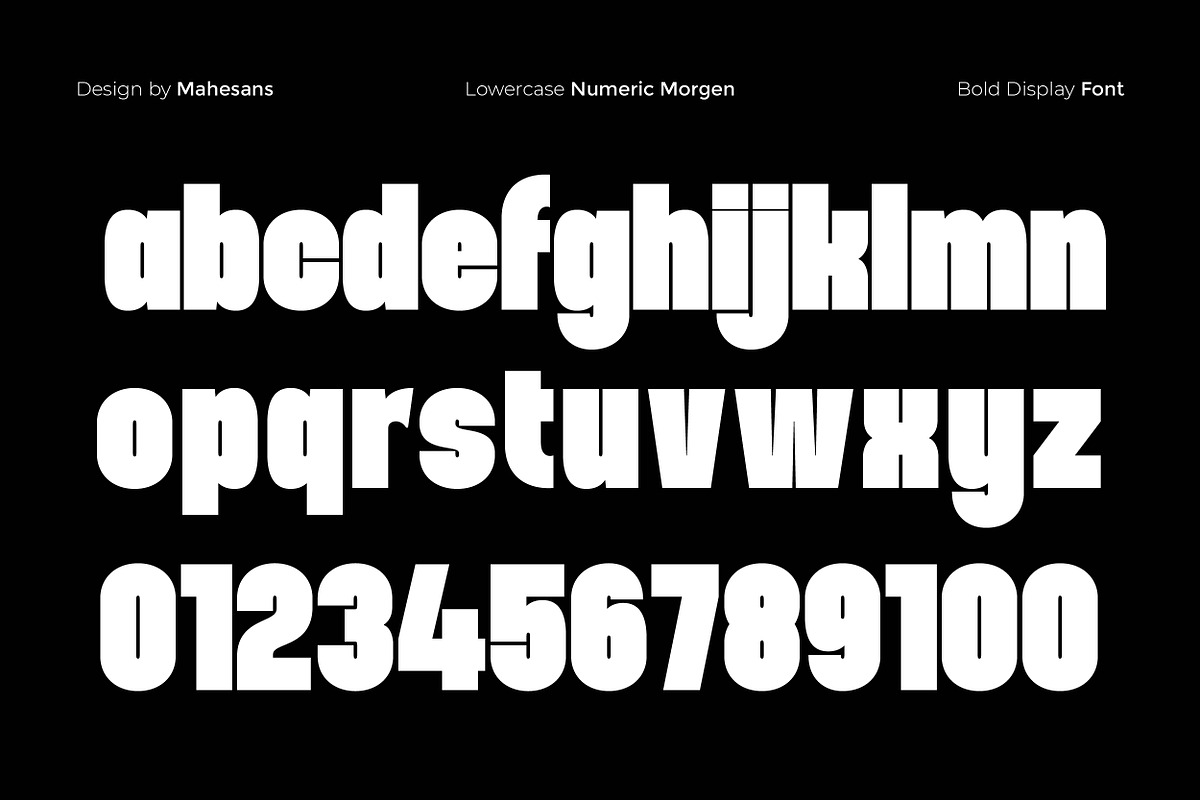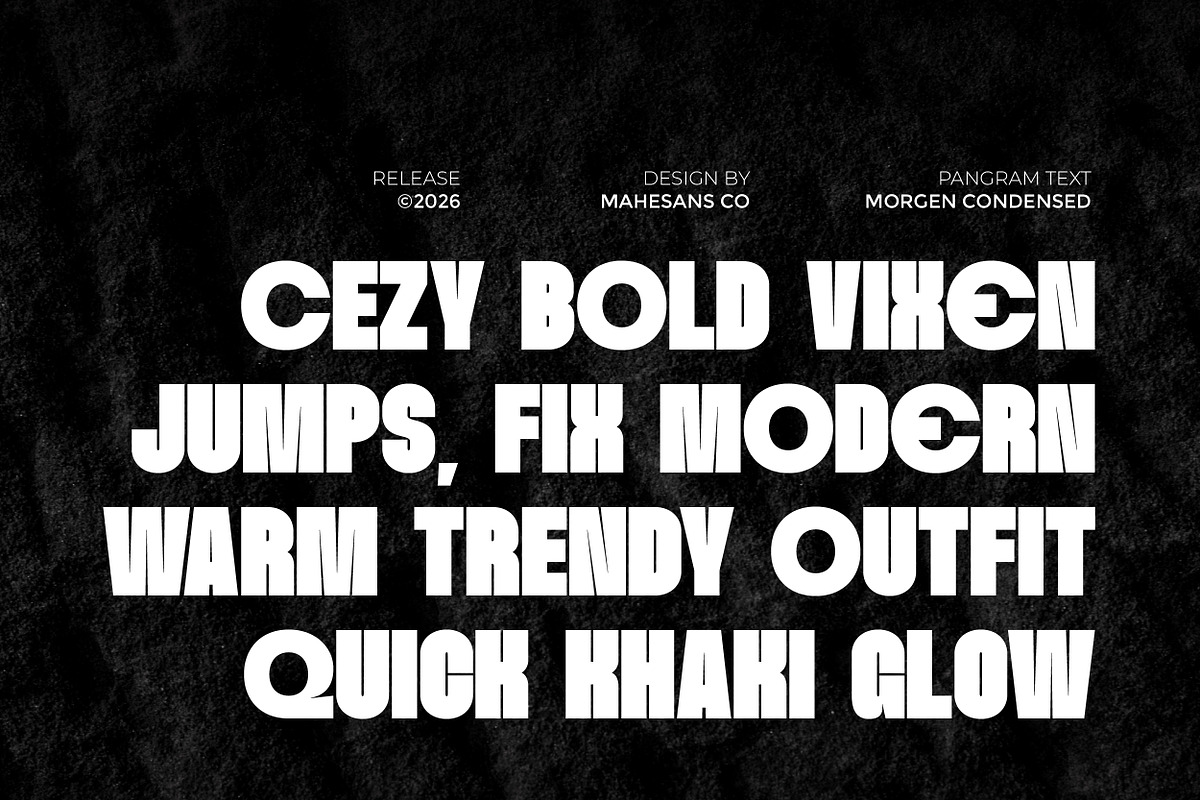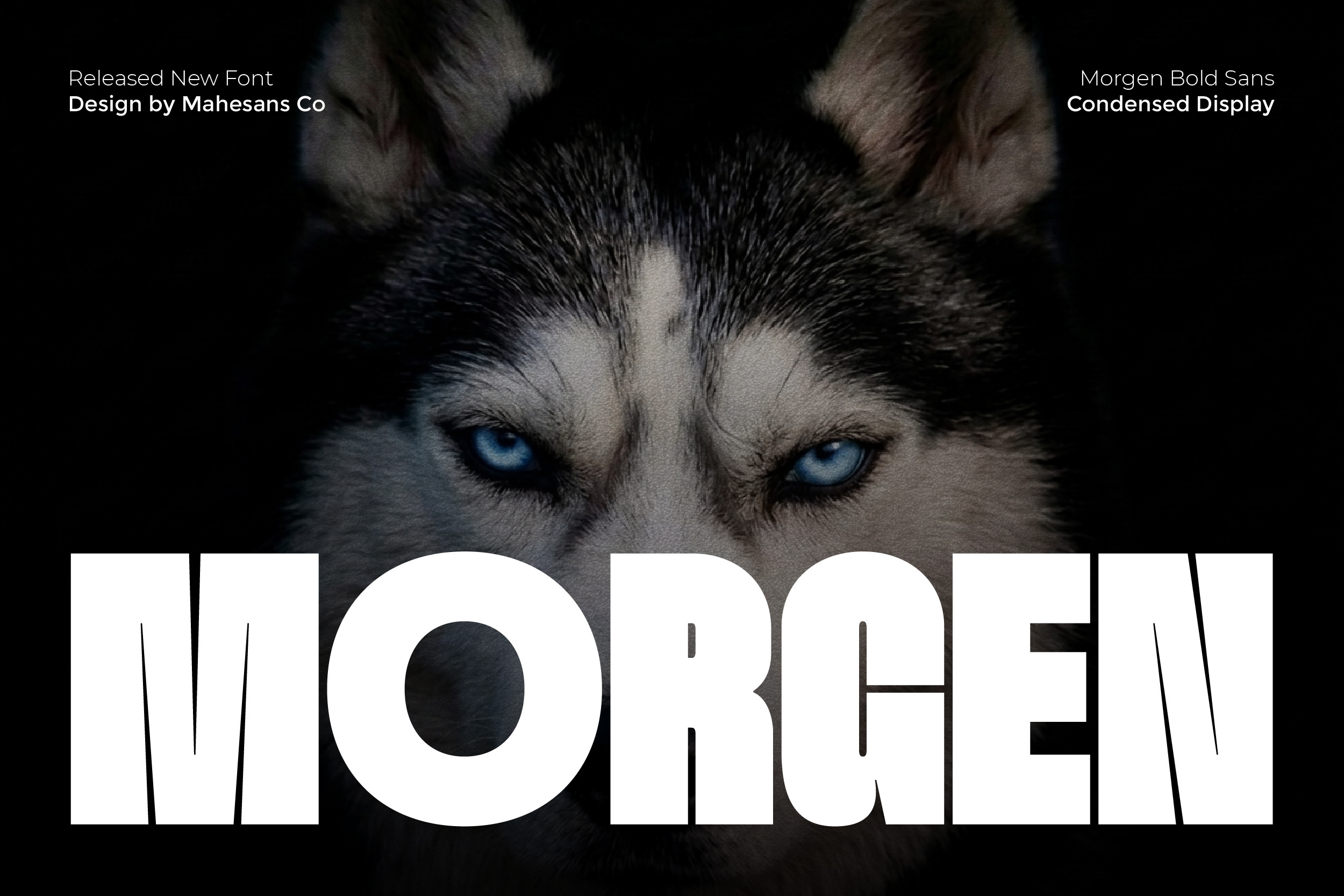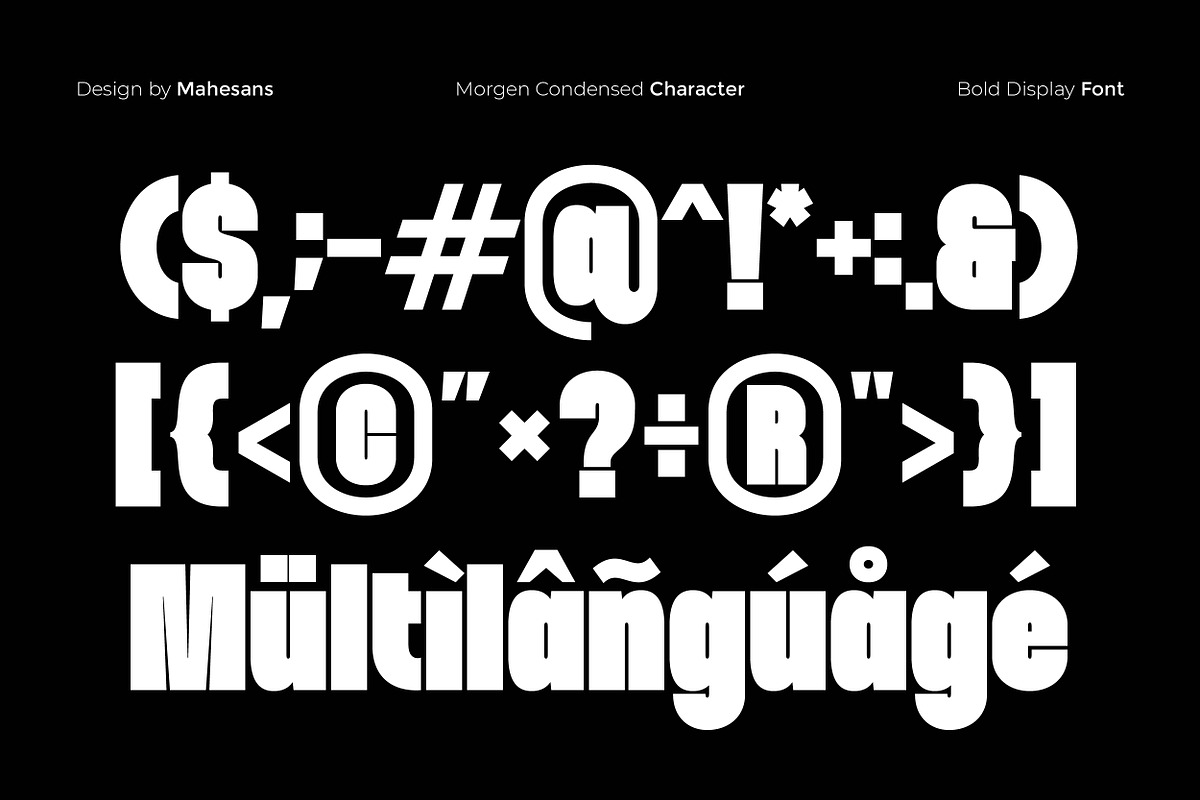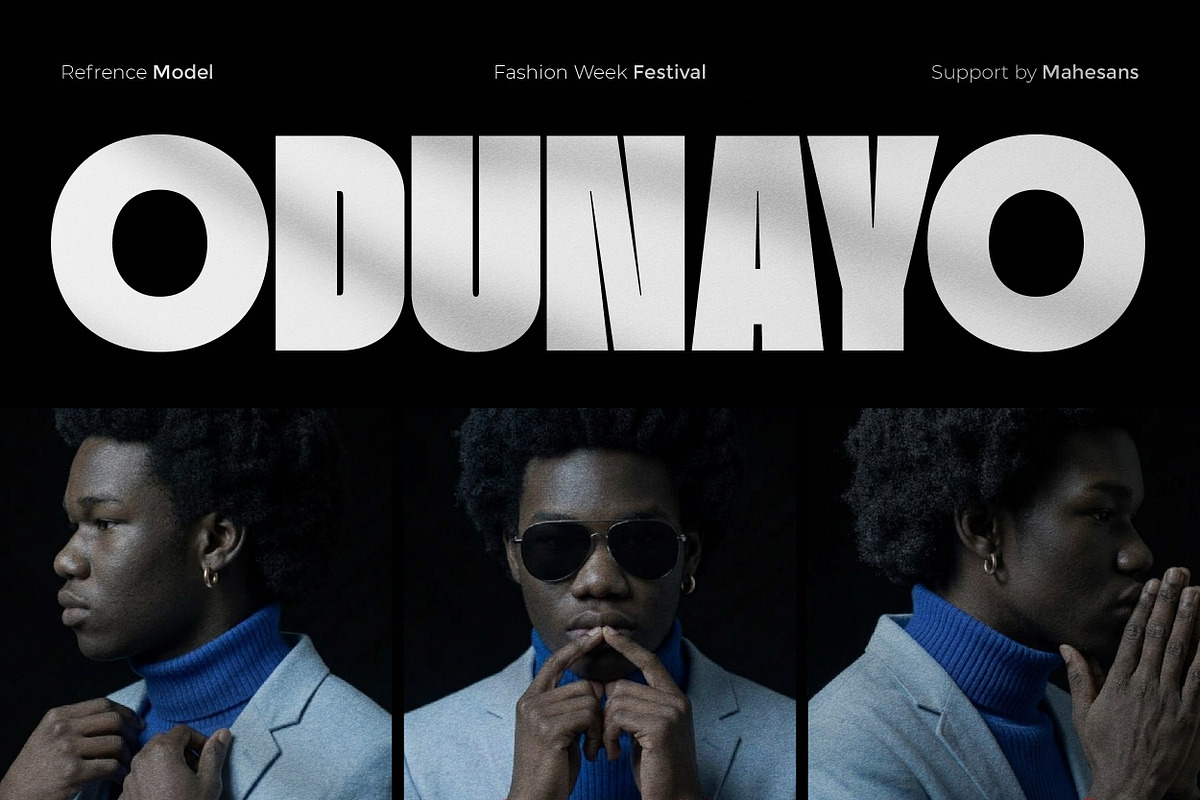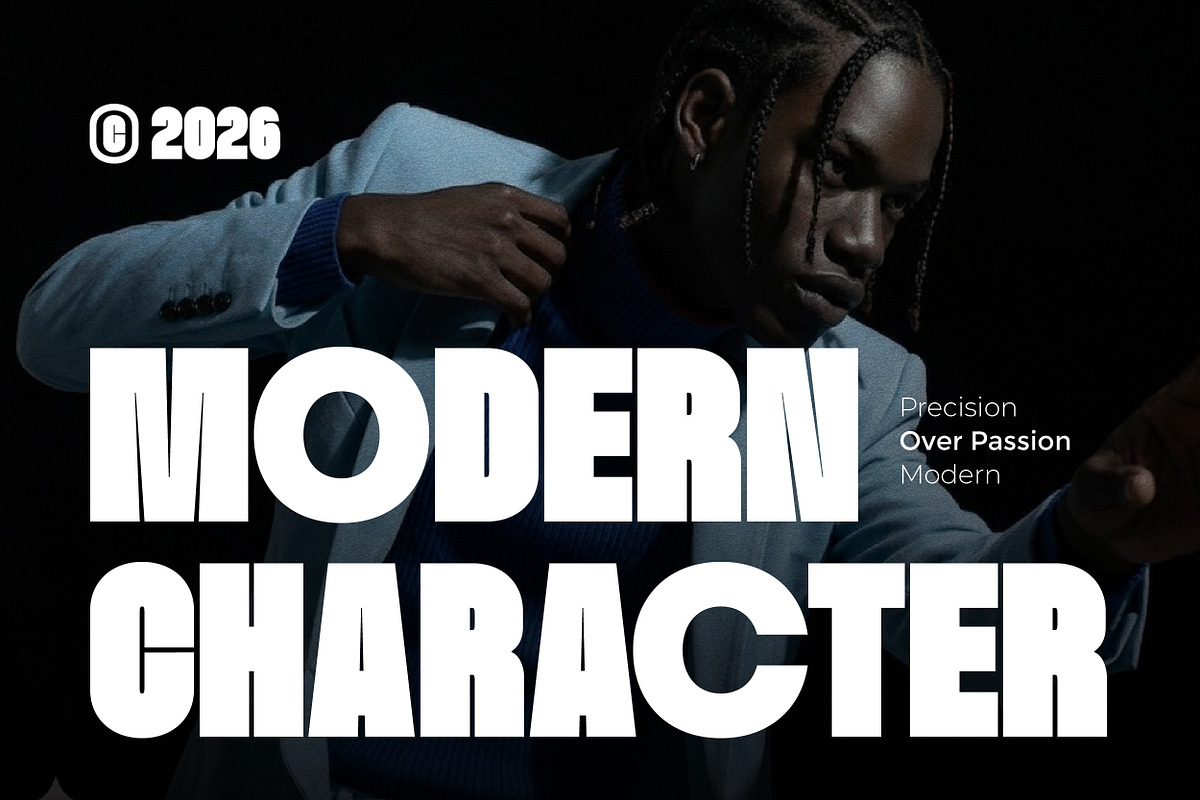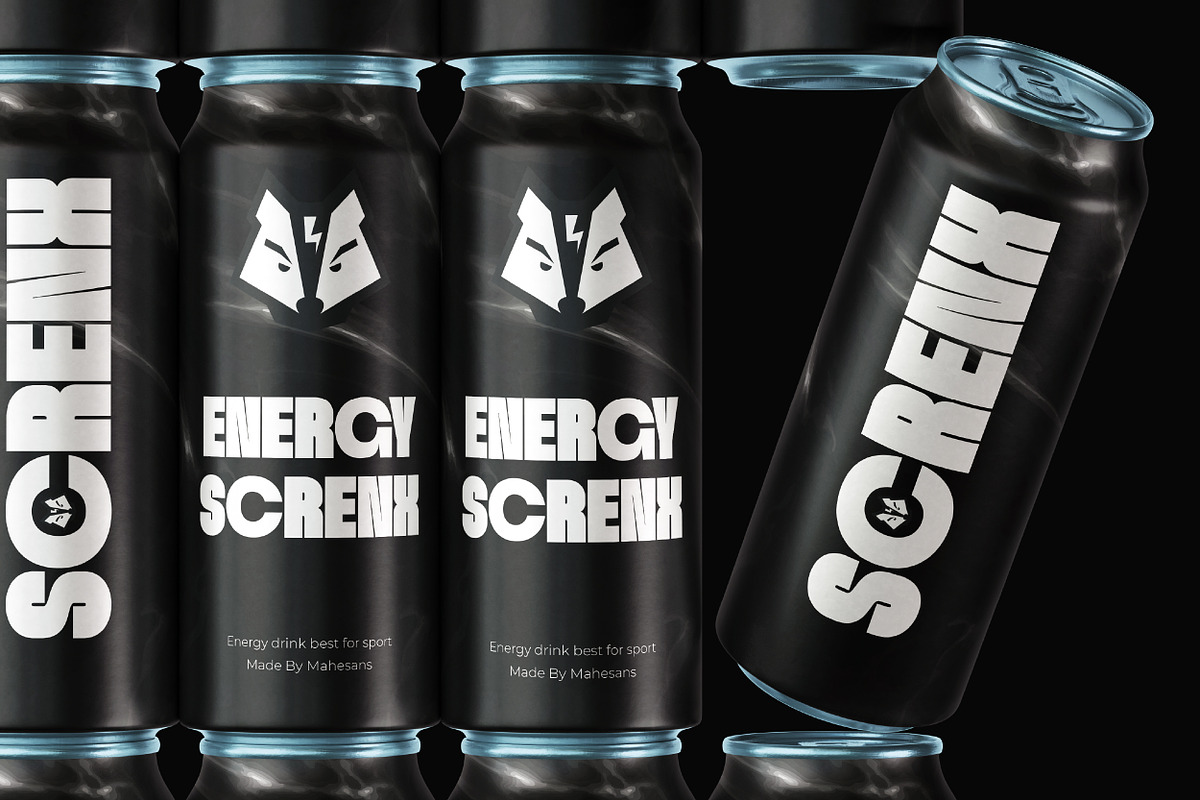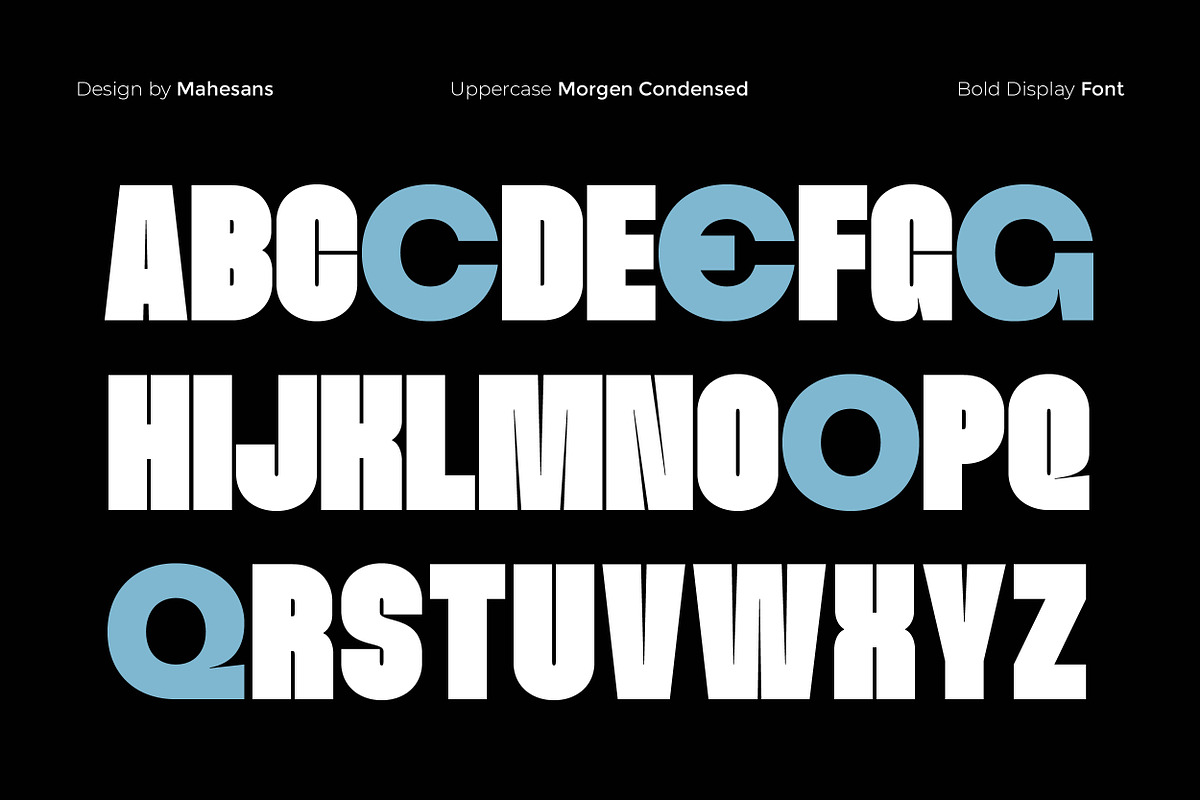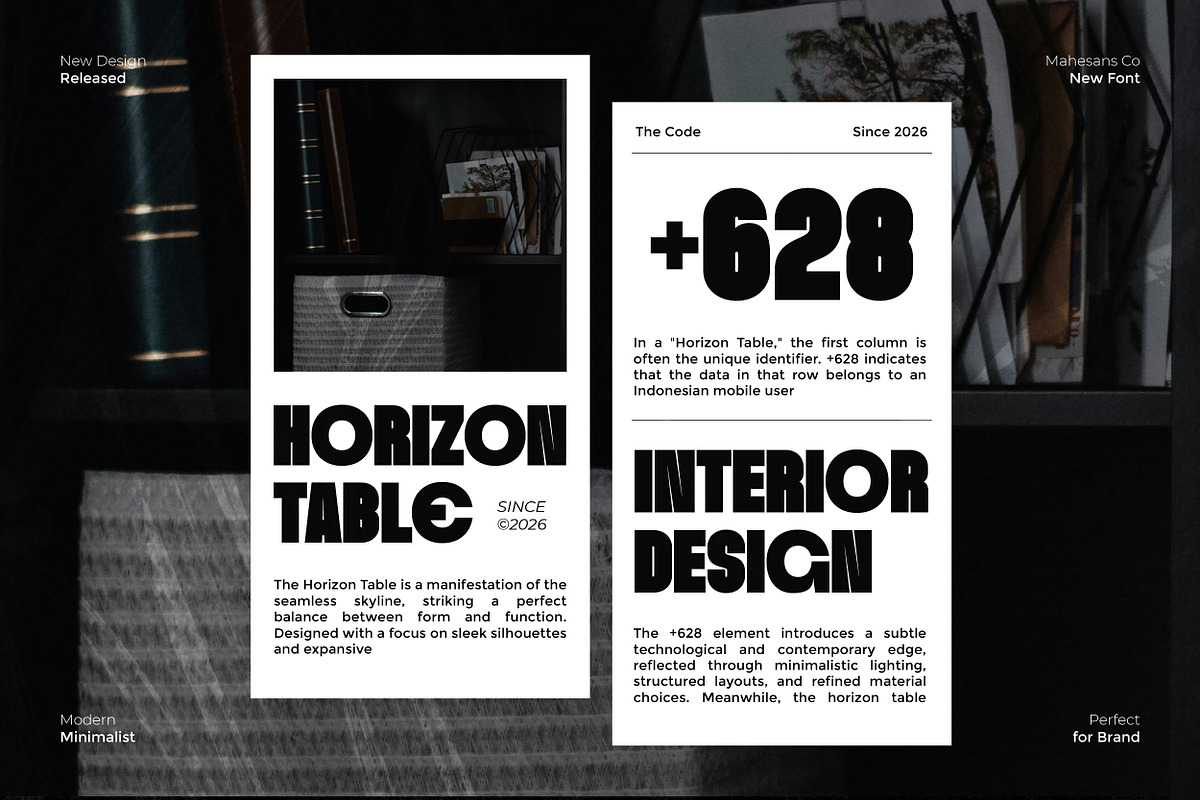
Morgen – Bold Condensed Display Font
Morgen is a bold condensed display font designed to make a strong visual impact. With its tall proportions, solid weight, and tight spacing, Morgen is perfect for designs that need to stand out without taking too much space. This font delivers a powerful and modern look, making it ideal for headlines, posters, branding, logos, packaging, editorial layouts, and social media graphics.
Morgen comes with uppercase, lowercase, numerals, punctuation, and multilingual characters, making it versatile for global design needs. Whether you’re creating a bold poster, a strong logo, or eye-catching social media content, Morgen provides the confident and modern feel your design needs.
- Posters & Headlines
- Branding & Logos
- Social Media & YouTube Thumbnails
- Packaging Design
- Editorial & Magazine
- Sports & Automotive
- Advertising & Website Headers
- Multilanguage